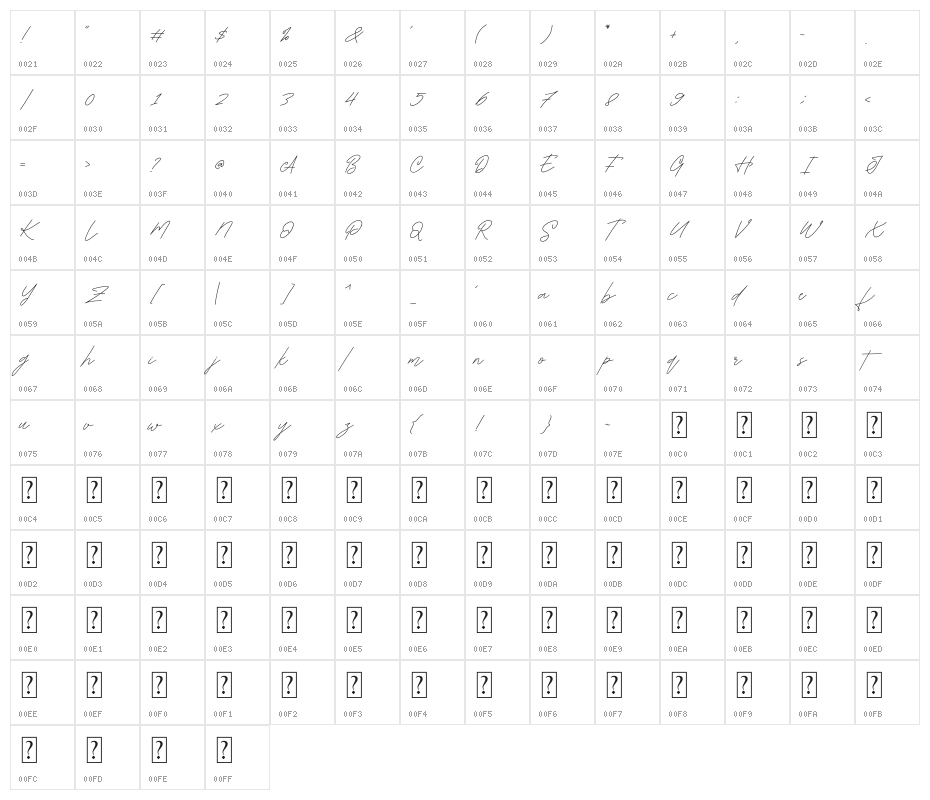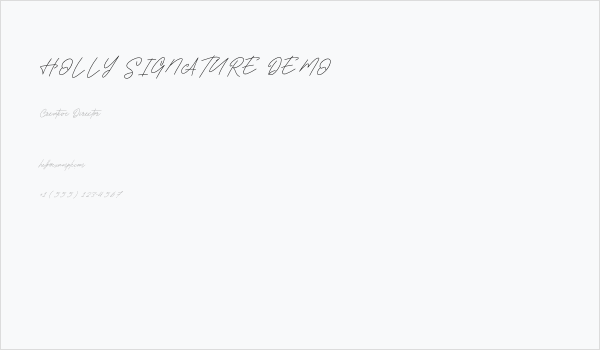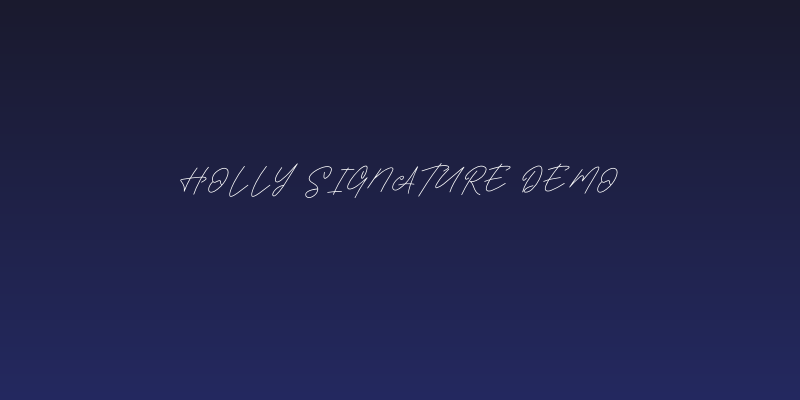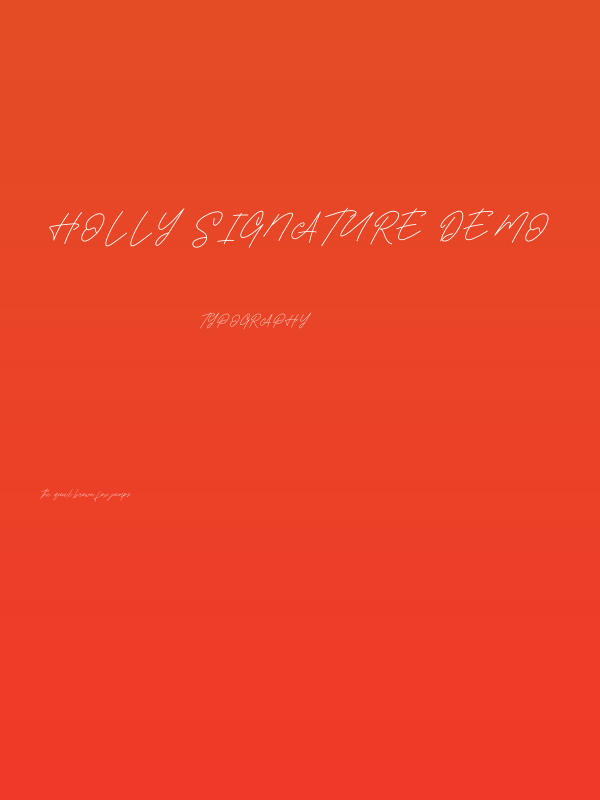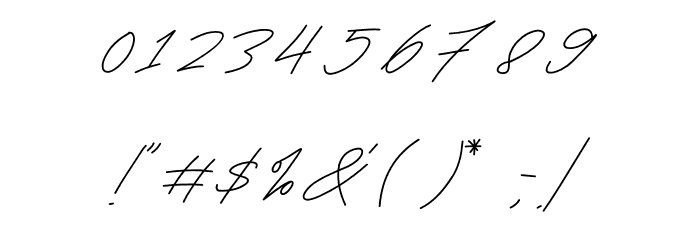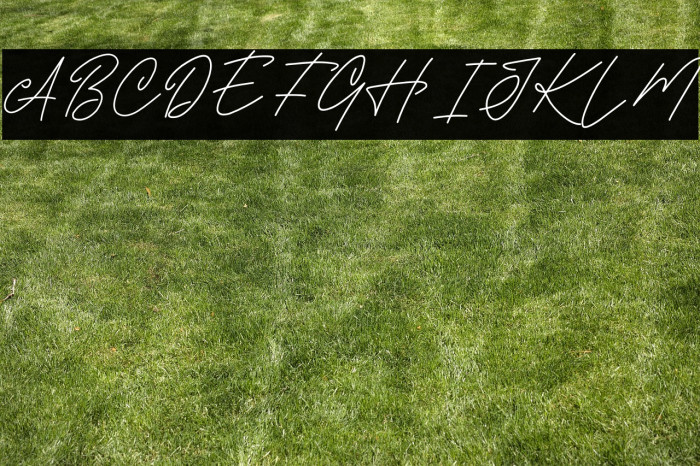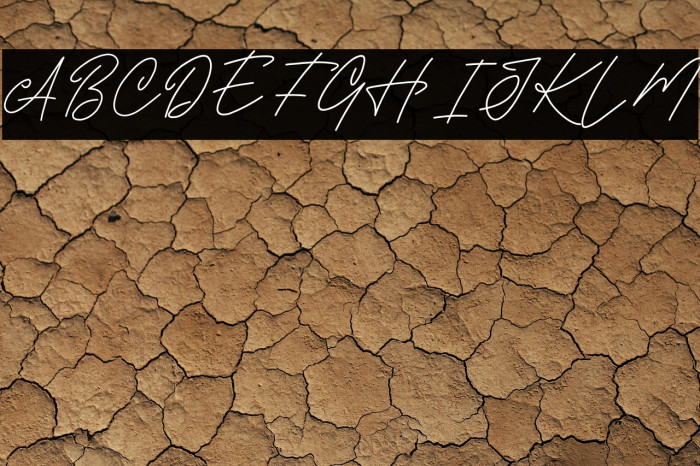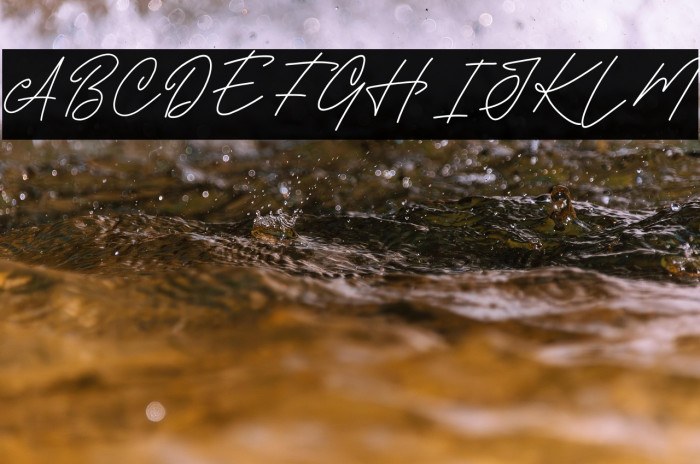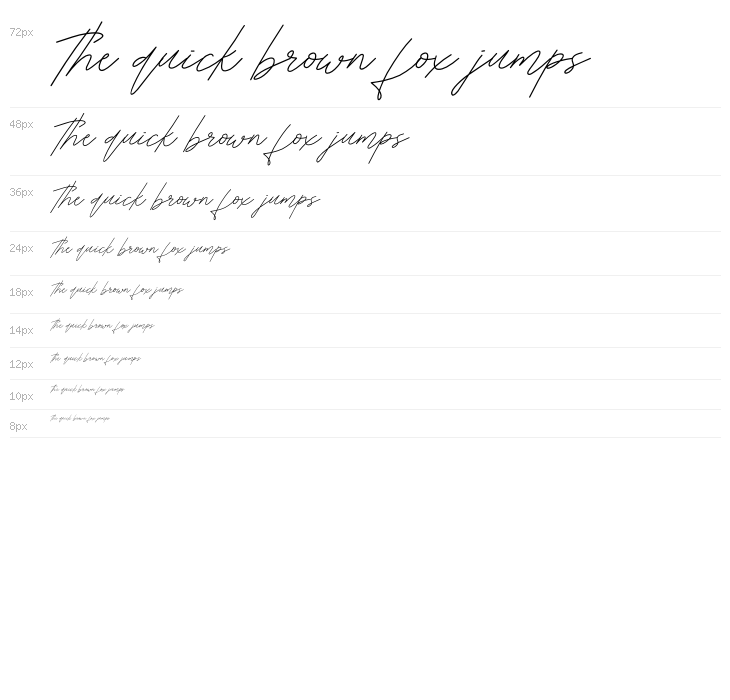
HOLLY SIGNATURE DEMO Font
HOLLY SIGNATURE DEMO Description
This font exudes a sophisticated and elegant handwritten style, characterized by its fluid and continuous strokes that mimic the natural flow of cursive handwriting. The letters are connected seamlessly, creating a harmonious and graceful appearance. The uppercase letters are slightly more elaborate, with extended loops and flourishes, while the lowercase letters maintain a consistent and smooth line. The numbers and special characters are crafted with the same attention to detail, ensuring a cohesive look throughout. This font is perfect for adding a personal touch to any project, offering a sense of warmth and authenticity.
| Use Case | Logos, Invitations, Personal branding |
| Proposed Projects | Ideal for wedding invitations, personal branding, greeting cards, and elegant logos. |